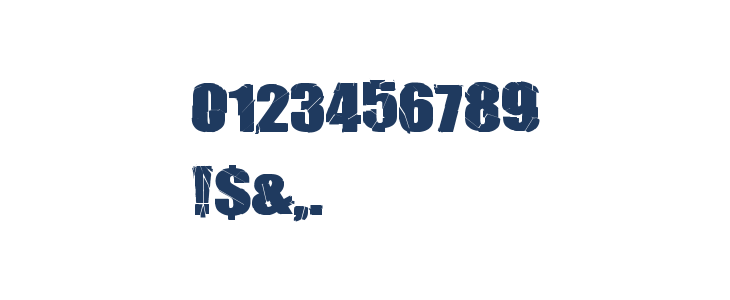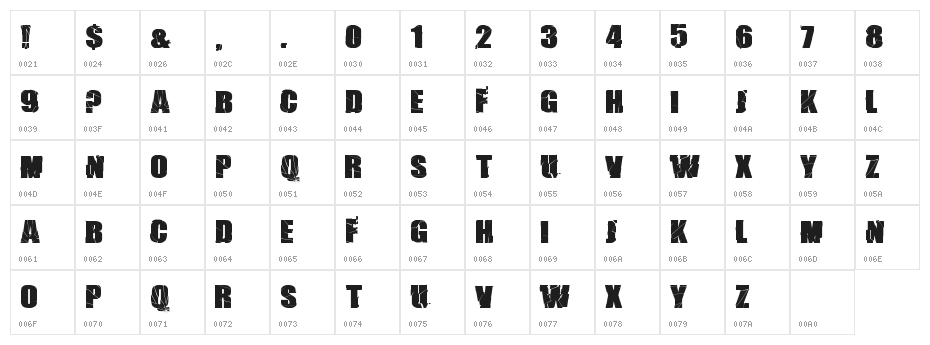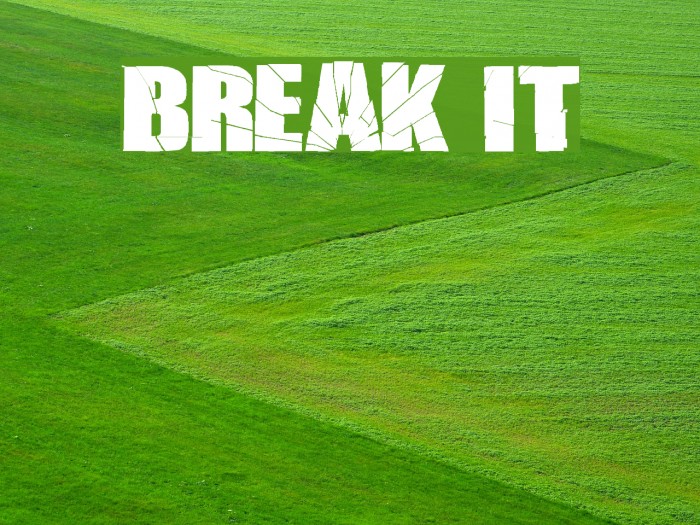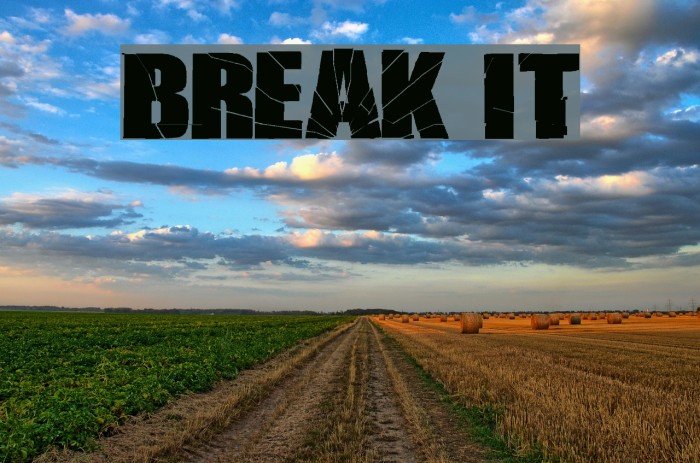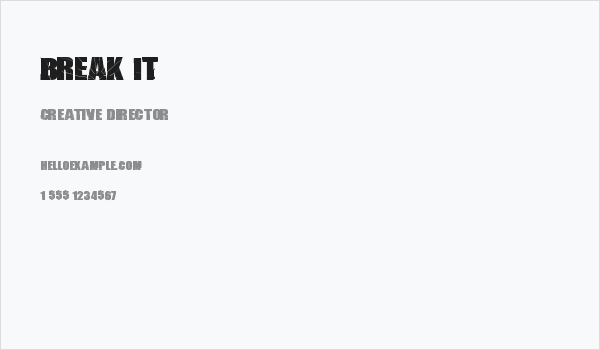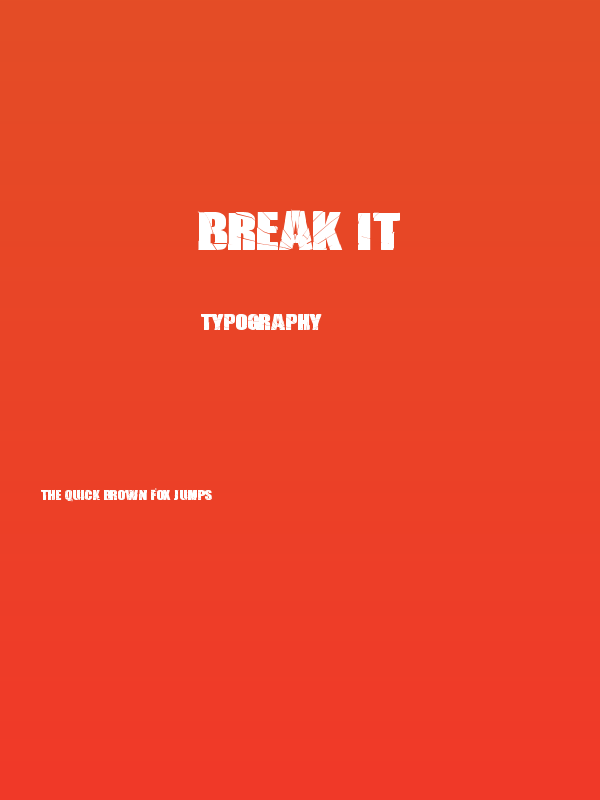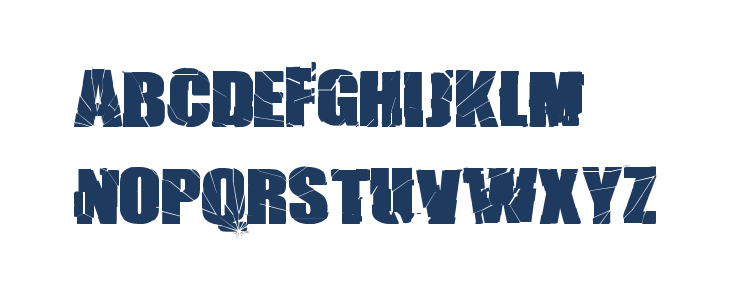
BREAK IT Font
BREAK IT Description
This font features a bold, distressed style with a shattered or broken appearance, giving it a rugged and edgy look. The characters are heavily stylized, with irregular edges and a fragmented design that suggests a sense of chaos or destruction. This unique aesthetic makes it stand out, ideal for projects that require a strong visual impact. The uppercase and lowercase letters, along with numbers and special characters, all maintain this consistent broken theme, enhancing its cohesive appearance.
Proposed ProjectsIdeal for music album covers, event posters, or any project needing a bold, rebellious aesthetic.